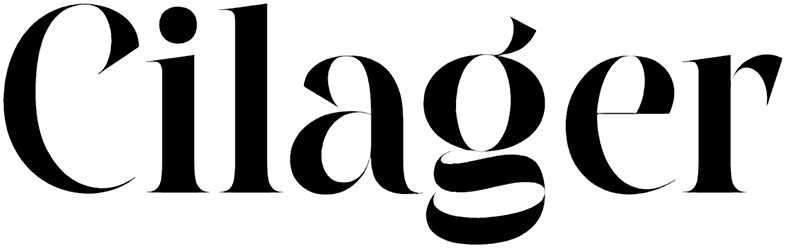
Cilager Font
Some fonts carry attitude before you even read a word, and Cilager is one of those. With its sharp contrasts and slightly condensed character, it feels like typography that was designed to be noticed, not just read. There’s a modern confidence in its letterforms that works beautifully in editorial headers, bold posters, branding that needs a strong voice, and packaging that wants to stand out on a crowded shelf. It doesn’t scream, but it refuses to be ignored.
Whether you’re crafting posters, logos, signage, or headlines, this serif font helps your message assert itself with clarity and style. Sometimes the right font isn’t the prettiest one; it’s the one that makes every word feel intentional.